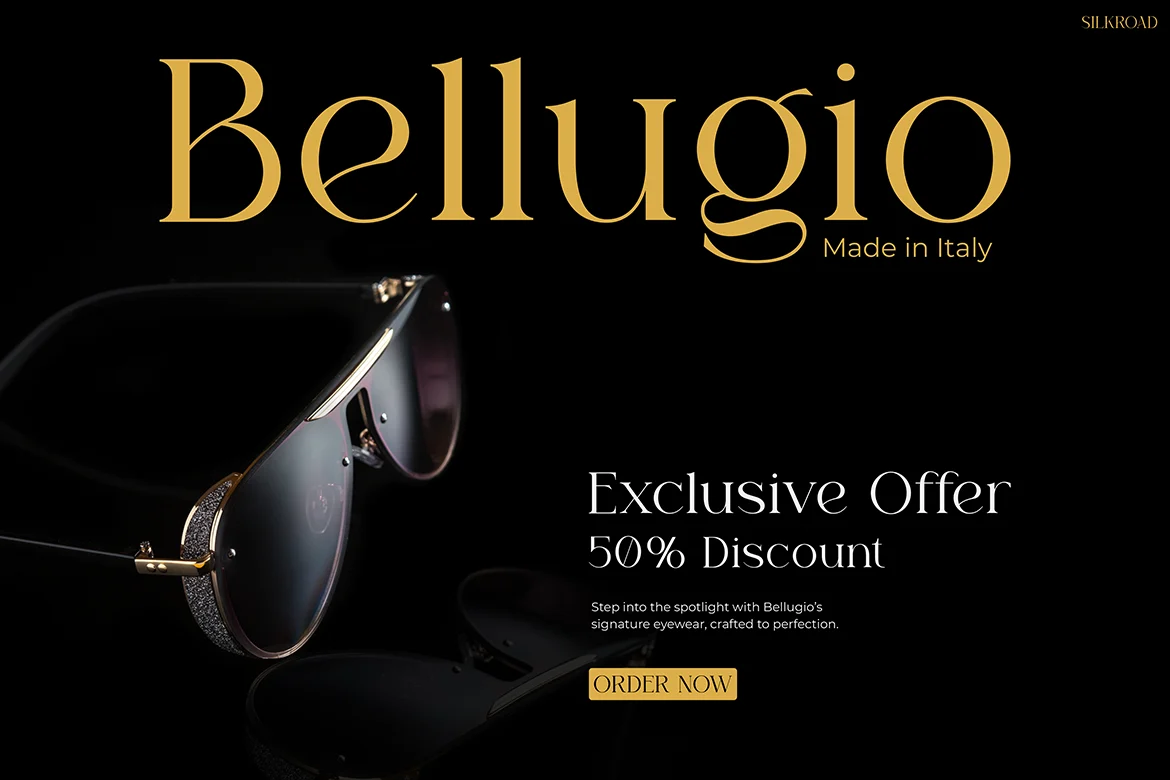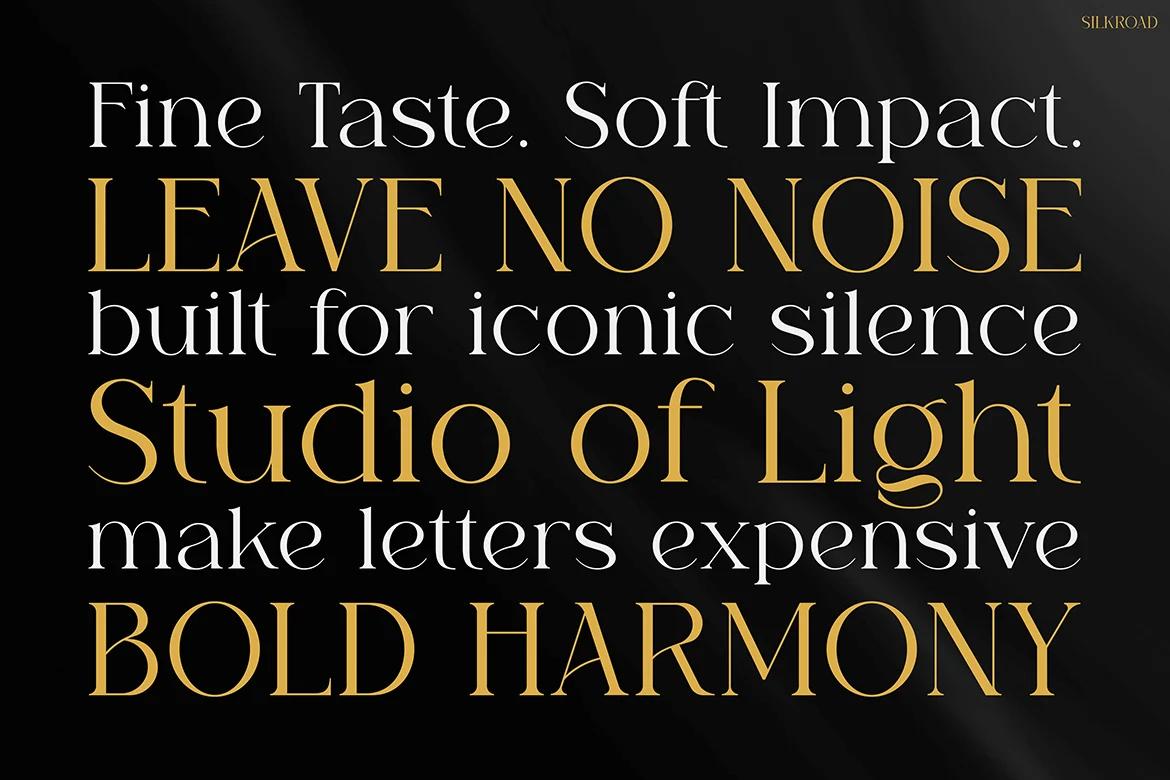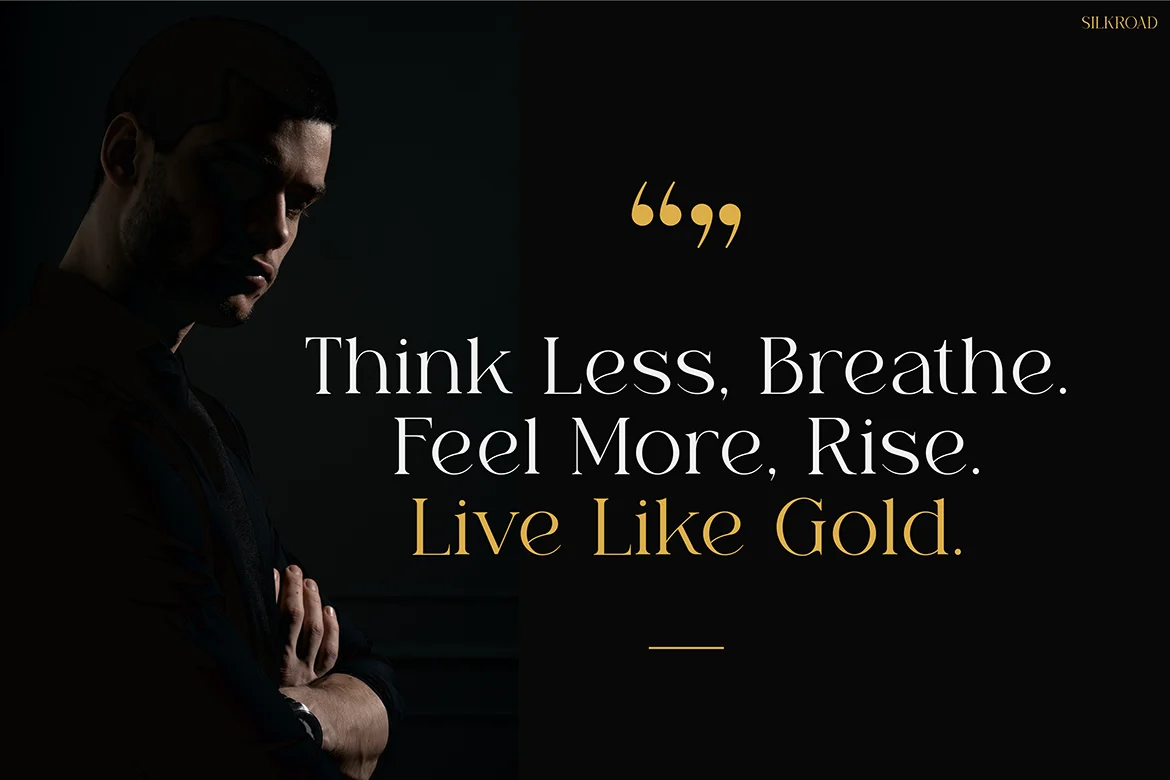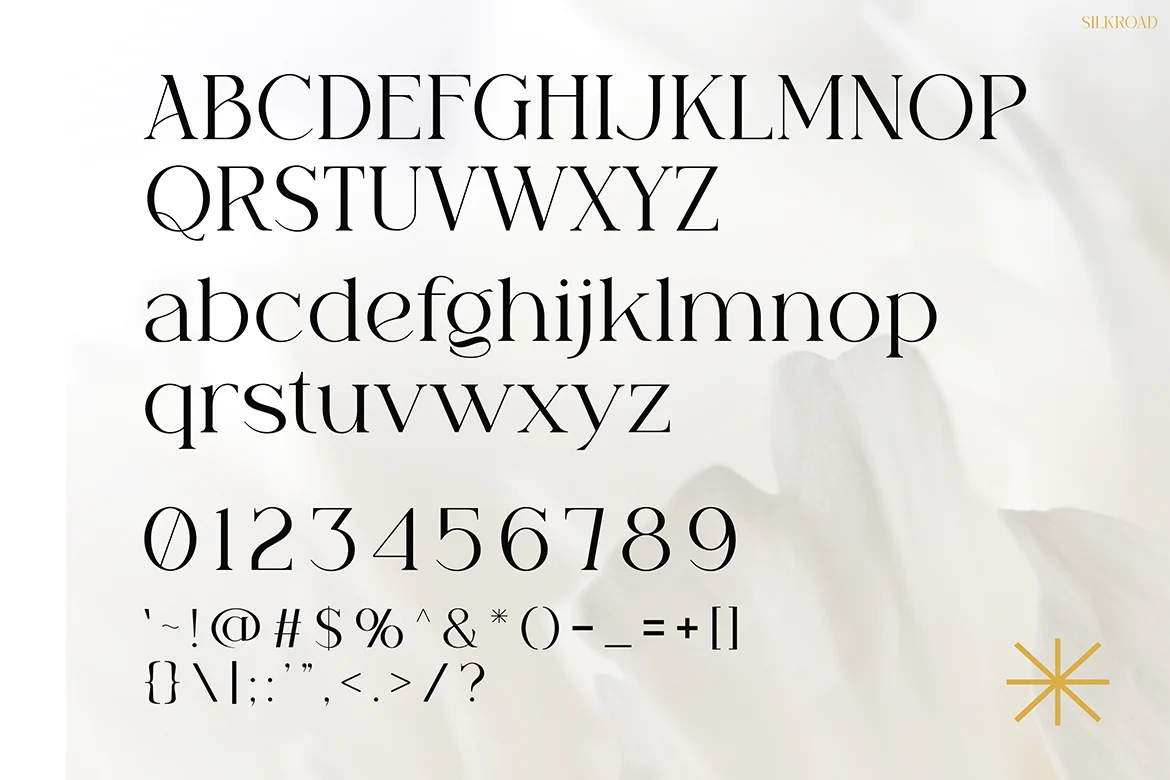
Silkroad– Luxury Serif Typeface Font
Silkroad– Luxury Serif Typeface
Silkroad is a modern luxury serif font with soft curves, balanced proportions, and high contrast strokes—perfectly designed for projects that need a sense of elegance, clarity, and refinement. Its refined letterforms, graceful serifs, and sophisticated details make it ideal for high-end branding and editorial design.
Whether you're designing a fashion catalog, a hotel brand, or a fragrance label, Silkroad provides the timeless sophistication and versatility you need. Think glamorous, think iconic—this font walks the runway.
From luxury womenswear campaigns to editorial magazine covers and Instagram visuals, Silkroad’s poised character adds prestige to any design. It speaks to those who value tasteful understatement and visual silence—an impeccable choice for high-end packaging, posters, or digital ads where bold elegance is essential. This is the font of choice when your work needs to whisper style and scream distinction.
Key Features
- Elegant Vibe – Instantly elevates fashion, fragrance, or hospitality branding
- Balanced Geometry – Ensures high readability in display sizes
- Sophisticated Contrast – Adds rhythm and drama without being overwhelming
- Timeless Appeal – Never trendy, always in style
Best For :
- Branding & Identity
- Editorial Layouts
- Product Packaging
- Instagram & Social Media
- Luxury Lookbooks